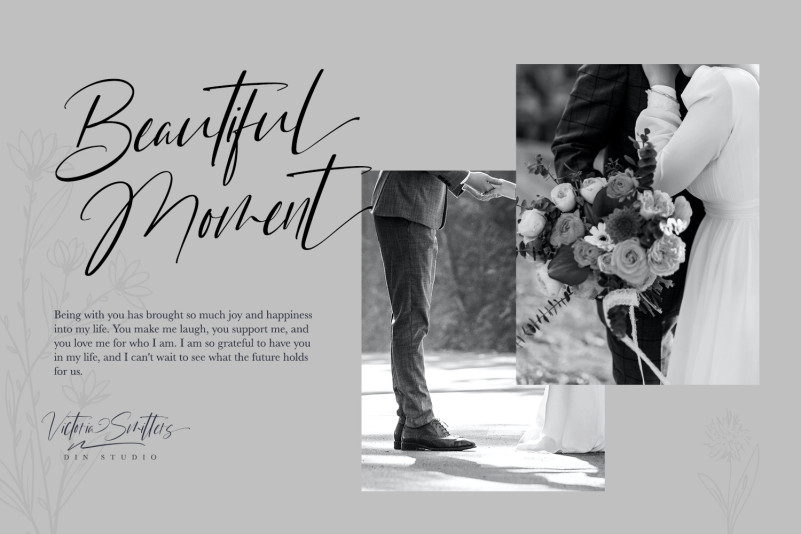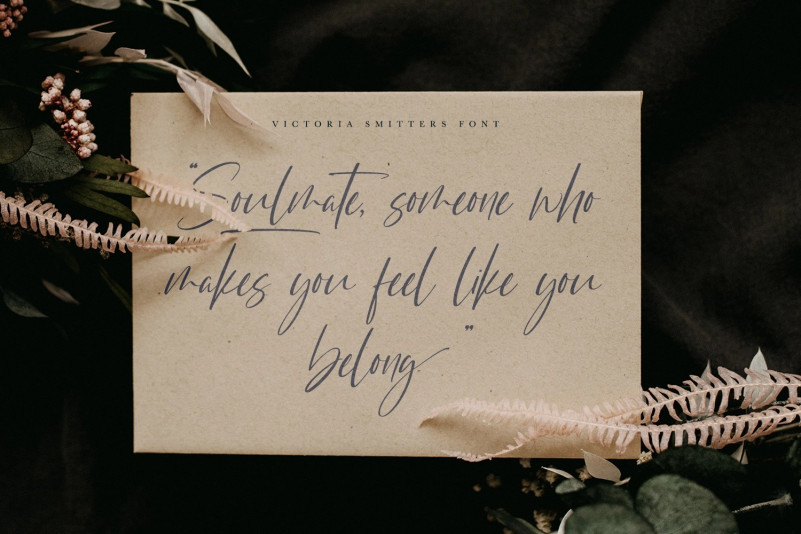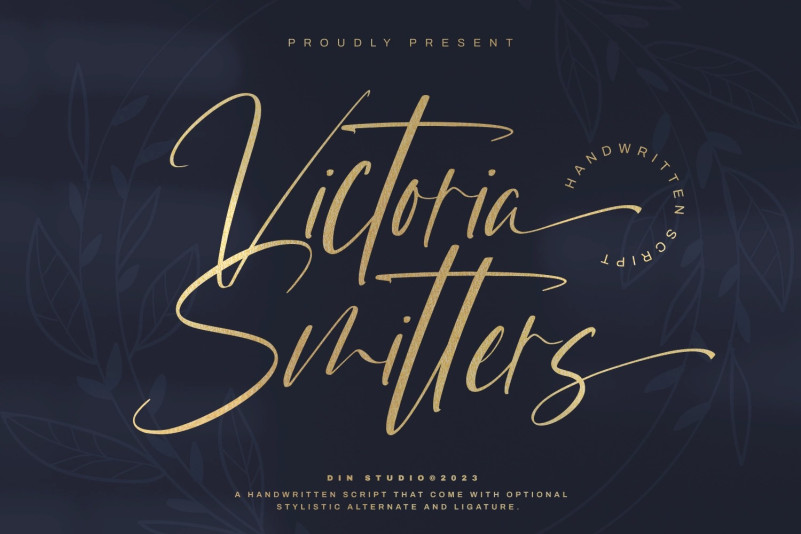
Victoria Smitters Font
Victoria Smitters Script Font is a visually beautiful handwriting font which is perfect to show modern, elegant impressions in a personalized design to impress your customers and to make your messages more prominent than the others. It is designed in a cursive way in which the letters are connected to each other. Details on each letter and cursive wipes on the edges show high contrasts. Furthermore, this font is suitably applicable for big text sizes for better legibility. In addition, you can enjoy the available features here.